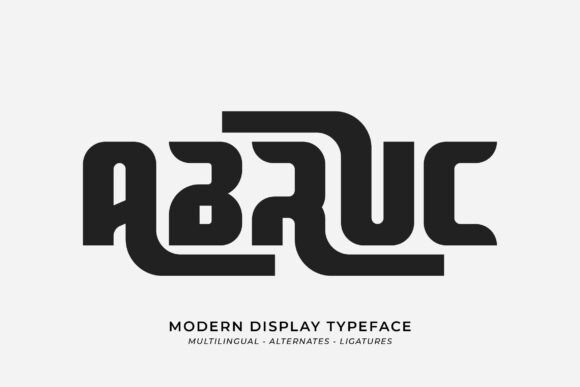
Unleashing Creativity with the Abruc Font
As designers, we’ve all been there – staring at a blank canvas, trying to conjure up the perfect visual identity for a brand or project. It’s in these moments of creative frustration that we stumble upon the perfect solution, and that’s exactly what happened when I discovered the Abruc Font.
This bold, modern display typeface is a game-changer for designers seeking a unique visual identity. With its distinctive geometric shape and interlocking pipe-like segments, the Abruc Font is perfectly suited for crafting eye-catching logos, modern technological branding, and event posters that require a contemporary, stylized look.
The Abruc Font is a valuable tool for designers, offering maximum creative flexibility with its sophisticated structure, alternates, and ligatures. Plus, its multilingual support and PUA-encoded features make it effortless to access all glyphs, swashes, and alternate characters.
Abruc Font Key Features
- Font Family: Abruc Font is a sans-serif font family.
- Unique Characteristics: Abruc Font features a clean and modern design with a unique blend of geometric and organic elements, making it suitable for a wide range of applications, including digital products, branding, and advertising.
- Language Support: Supports multiple languages, including Latin, Cyrillic, and Greek alphabets.
Abruc Font Review
As a designer, I was excited to try out the Abruc font. Here’s my honest review.
- Unique style: Abruc font has a distinctive, modern feel that sets it apart from other fonts.
- Legibility: Despite its unusual design, the font is surprisingly easy to read, even at smaller sizes.
- Flexibility: Abruc font works well for both headings and body text, making it a versatile choice.
- Limited character set: The font is only available in a few weights and styles, which may limit its use in certain applications.
- Not ideal for large blocks of text: While Abruc font is readable, it’s not the best choice for long blocks of text due to its condensed design.
Abruc font is a great choice for designers looking for a unique, modern font to add some personality to their designs. While it may have some limitations, its versatility and legibility make it a solid option for a wide range of projects.
Abruc Font is perfect for adding a touch of elegance to your Canva designs, especially in headings and titles.
Abruc Font is ideal for creating custom typography in your Adobe projects, adding a sophisticated touch to your designs.
Abruc Font is perfect for adding a touch of sophistication to your PowerPoint or Word documents, making them stand out from the crowd.
1. Use Abruc Font in headings and titles to add a touch of elegance.
2. Pair Abruc Font with other elegant fonts to create a sophisticated look.
3. Experiment with different font sizes and colors to customize the look of Abruc Font in your designs.
Common Use Cases for Abruc Font
Abruc Font is perfect for:
2. Luxury branding and marketing materials.
3. High